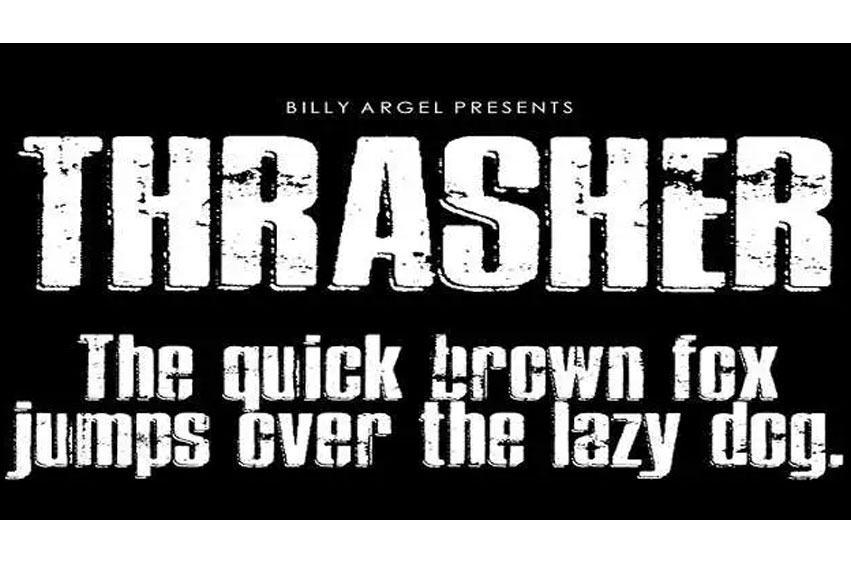
Thrasher Rough Font
Thrasher Rough Font is an amazing destroy font that is created by Billy Argel and is a free font for download and personal use.
The free version offers uppercase and lowercase letters and some special characters as well.